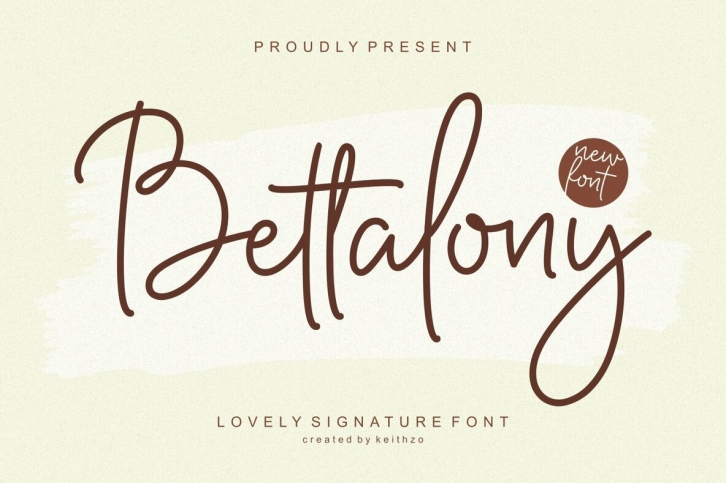
Elevate your projects with the elegance of this stunning handwriting font. Bettalony’s fluid lines and delicate curves add sophistication to wedding invitations, branding, and social media graphics alike. It is also PUA encoded which means you can access all of the glyphs and swashes with ease!